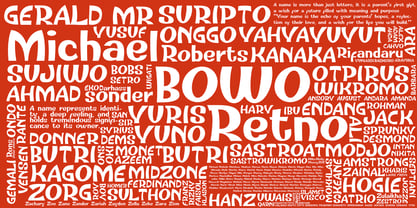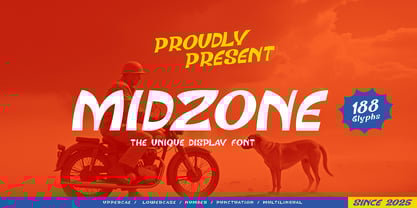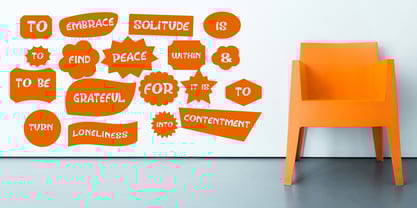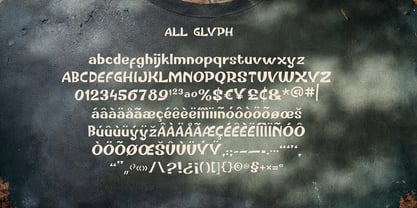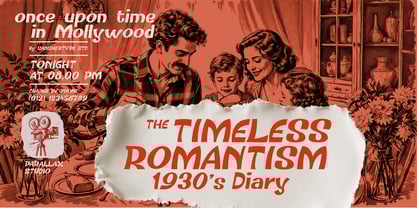
Midzone
The Midzone Font Family was designed by Yuniardi Wibowo and published by Sanskertype Studio. Midzone contains 1 styles. More about this family
Midzone is a sleek and modern display font, perfect for eye-catching titles and stunning layout designs. Ideal for designers seeking a contemporary and stylish touch, Midzone brings a trendy and dynamic feel to any project. Its unique letterforms ensure a clean, artistic, and visually striking appearance—never dull or ordinary.
Featuring 188 glyphs, Midzone Display supports OpenType features, making it easy to use in OpenType-savvy programs like Adobe Illustrator, Adobe InDesign, CorelDRAW, Adobe Photoshop (X versions), and Microsoft Word. Designers and crafters can effortlessly access all alternate characters, unlocking endless creative possibilities.
FEATURES
- Uppercase and Lowercase letters
- Numbering and Punctuations
- Multilingual Supports